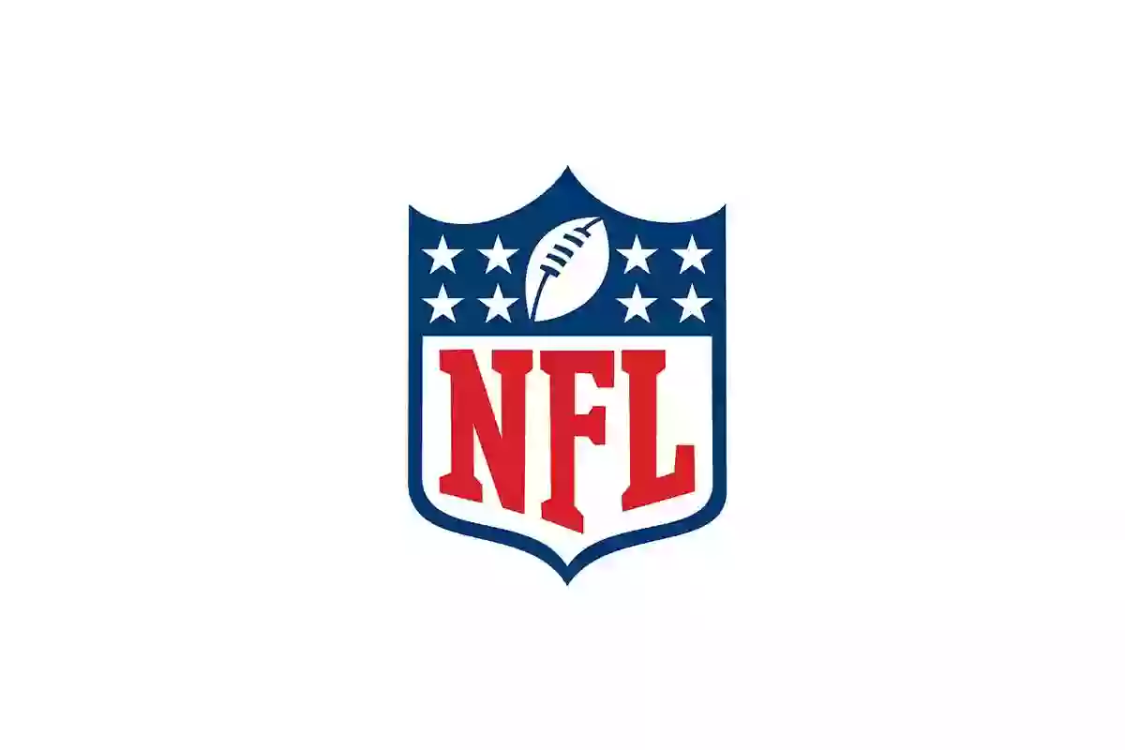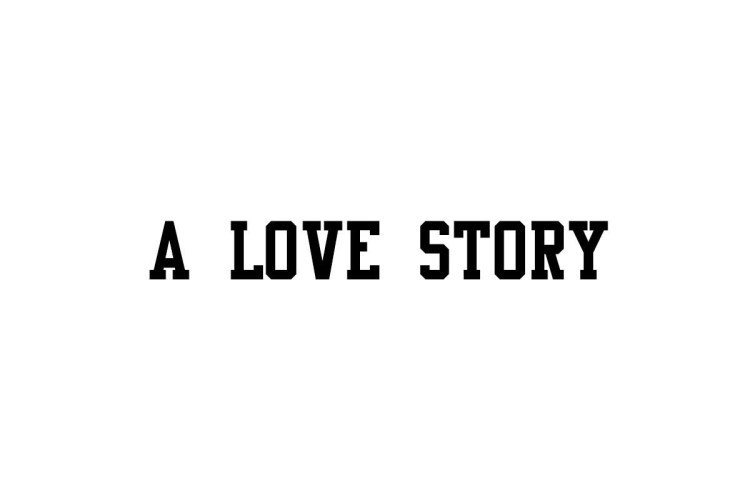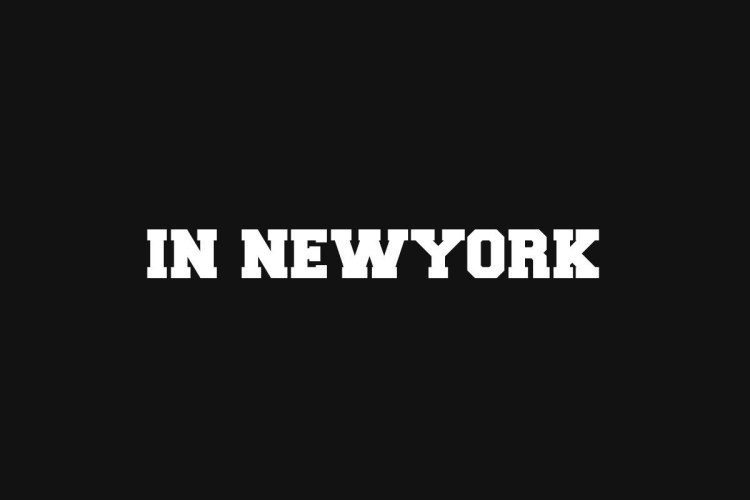
NFL Font
The NFL font, or simply the NFL typeface, is a very special and distinctive codification that the NFL uses for its branding and communication promotions. It plays a central role in projecting the NFL’s vision, purpose, and fans’ connection to the world as a football league.
The story of the NFL font can be traced back to the beginnings of the NFL league. However, it has been renovated in the future to show how designs change, yet the core ones remain preserved. The NFL font is now a custom-designed typeface created only for the league, featuring bold, solid letterforms, sharp edges, and an energetic and powerful feeling.
Well, you can tell this NFL font from other fonts as its witch “N” is the most distinguishing. It can use a slant or angle to create more dynamism and liveliness. Such a layout expresses the high-speed nature of American football and its emblem of joy and thrill.
The font is widely used in the league’s logo, which is designed as a shield. The letters “NFL” are the most outstanding component of the logotype of the custom typeface. For this reason, this logo is the leading visual cue of the entire NFL brand, and it is recognized by millions of fans worldwide.
They are also faced by the stage displayed in shopping malls, buses, trains, digital platforms, television, apparel, and merchandise. Repetitive use in advertisements, websites, and various other stabilizes of the league and its linked teams help maintain brand awareness and create a design unity.
The NFL font is multifaceted enough to be used in multiple applications to meet specific contextual and design requirements, whether printed on a poster or the jerseys or used in digital graphics for social media marketing. Its bravery and the body of a fighter make it ideal for shooting actions around football.
NFL Font is a Display Fonts font that brings a professional and versatile look to your projects. The NFL font, or simply the NFL typeface, is a very special and distinctive codification that the NFL uses for its branding and communication promotions.